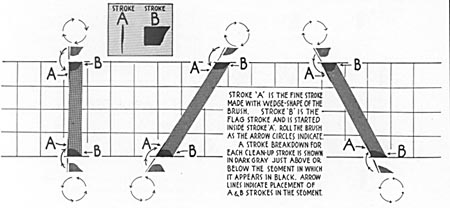
Clean up strokes
I was wondering if one of the vet's here would be willing to demonstrate on youtube video the basic strokes and touch up/clean up strokes that are shown on the pictures below.
Aaron those clean up strokes in the diagram seemed confusing to me at first as well. the circles with arrows show the direction of rotation we employ as we are doing those strokes. just place the corner of the brush down then pull the stroke as you spin that same corner into the opposite corner finishing the cleanup. it is easier done than explained....too easy to over think this. with practice you will not have to think at all. Sorry I know that was no video.
Bob, that almost makes sense and i feel one step closer to figuring it out
Been struggling with this as well and as a southpaw its all backwards for me, curse my stupid choice of hand at infant age! My egyptian end strokes look mutated and ashamed.
Any input from a fellow left-handed mechanic on this topic would make me skip and prance!
I know there is no such thing as too much practice, i will figure something out myself eventually,
On reverse i've been a heathen and onestroked it as best as i could and trimmed everything with razors after but yeah, that only one surface
I'm left handed as well. Having you thumb on the wrong side of your dominate hand can make it difficult to emulate a right hander's style. You will have to improvise as you improve. I always use a mahl stick and hold my paint and palette in my right hand, for instance.
I work from left to right but on my horizontal strokes such as e's and h's I stroke the crossbar right to left. On b's and p's I make a short stroke on the top and then go all the way around to complete the loop. When I do round letters such as an o I start a little more to the left than a right hander and come almost all the way across the bottom.
It's all what works for you. Keep plugging away. Do a lot of free and casual stroking to develop character in your brush handling. Be relaxed. Keep your practice with strict rigid one stroke block lettering as well. Once you have complete control you will be able to follow any traced or pounced line perfectly.
25 years ago I was told by a shop owner that he wouldn't hire a left handed signpainter because they're messy and can't paint a script. I proceeded to paint a line of nice free flowing script with some one stroke block underneath it. He didn't hire me because my work made his look like n. Of course he had another reason but I knew his work and it was very generic and rough.
That is some fantastic advice, i've tried the thing with doing the loop in a full stroke and it looks better and feels less fidgety! I'll try the other things tomorrow!Joe Morreale wrote:I'm left handed as well. Having you thumb on the wrong side of your dominate hand can make it difficult to emulate a right hander's style. You will have to improvise as you improve. I always use a mahl stick and hold my paint and palette in my right hand, for instance.
Mahlstick did a ton of improvement for me, best investment to date.
The relaxed part is what i put the most effort into now, being the boss of the brush is not the same thing as holding it tight apparently. Shoulders, elbow and wrist are ok, its just my hand that gets clumsy and stiff in finishes and twists and rolls.